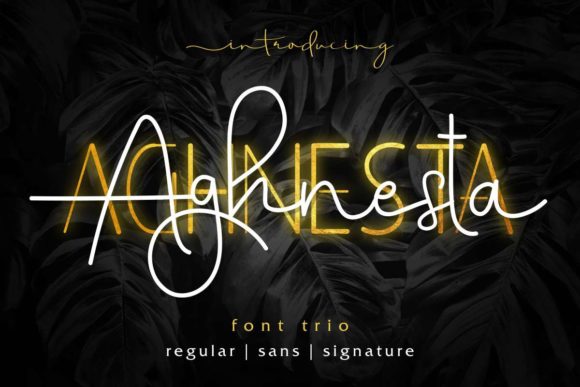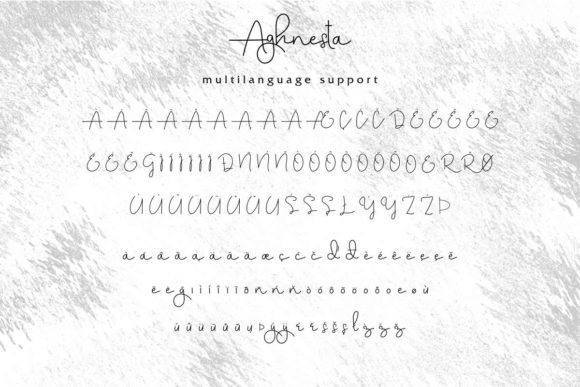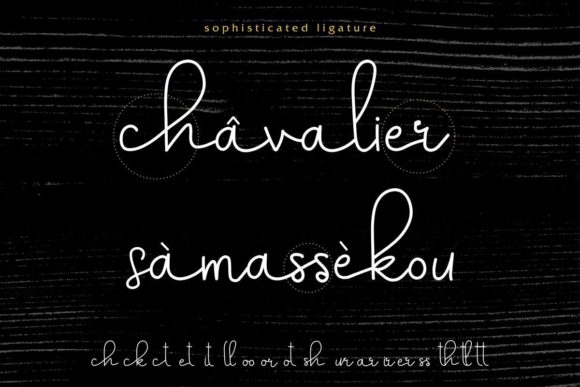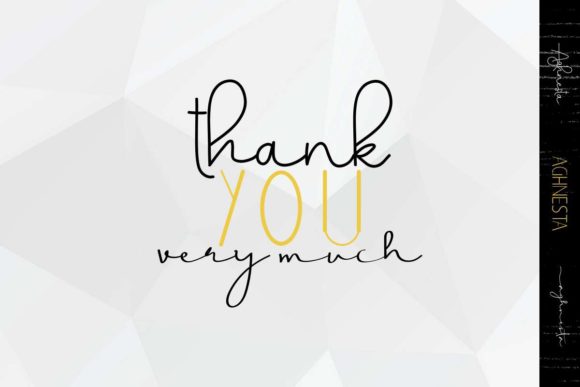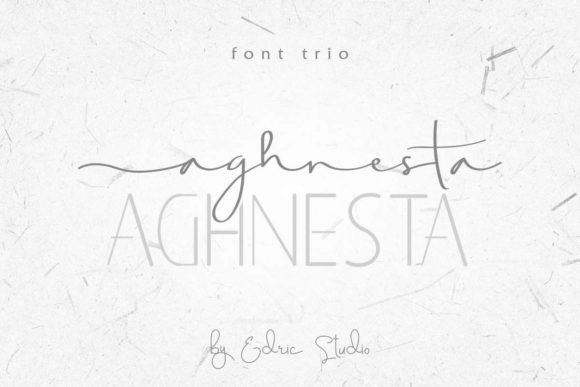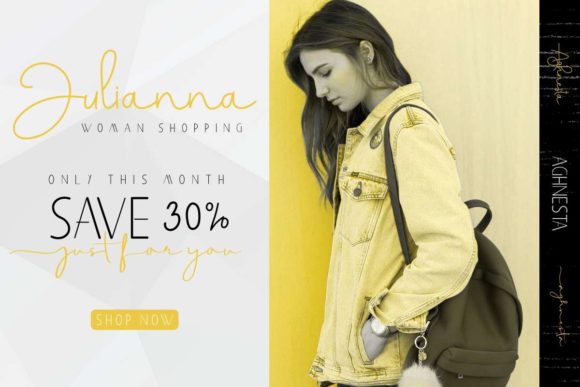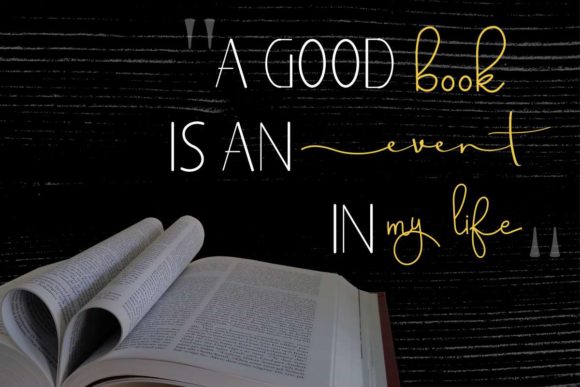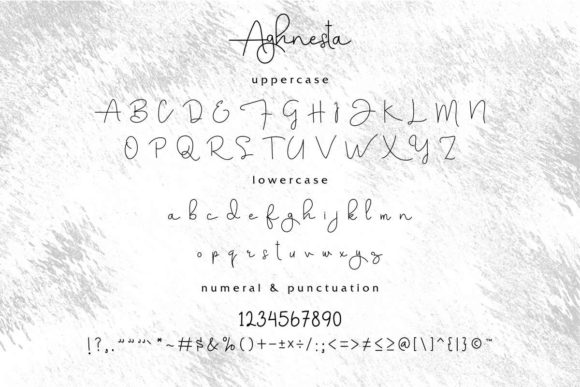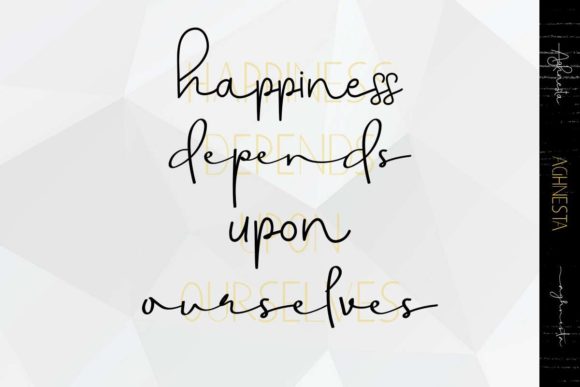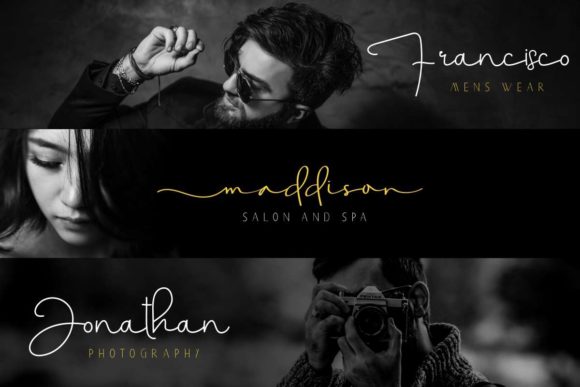
Aghnesta Trio Font
About Aghnesta Trio Font
Aghnesta combines three unique fonts into one truly gorgeous Duo. Combine the script, signature and sans serif font to achieve outstanding results!